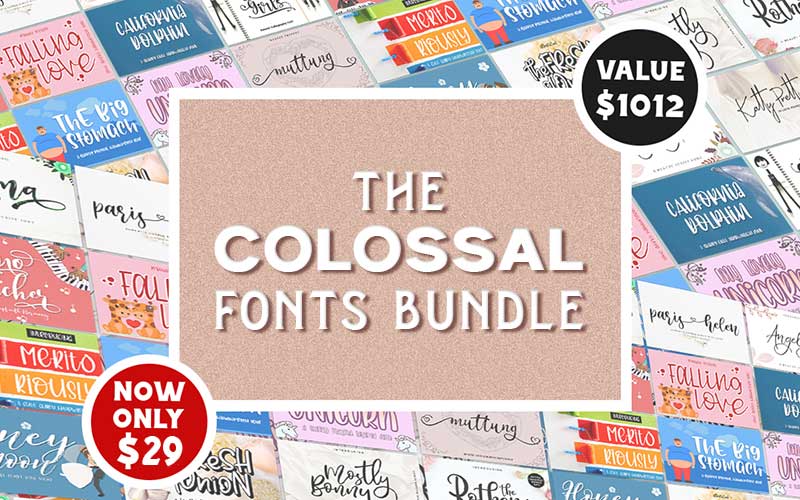
The Colossal Fonts Bundle
100 Best Fonts For Designers!
It’s here! Lumbering down towards you, the best fonts for designers cramped up in Inky’s latest Colossal Fonts Bundle!
This bundle is filled with 100 warm, smooth, and fuzzy fonts. These fonts are perfect for any project. From brand identities and packaging to editorial pieces and website designs, these fonts are useful for all types of campaigns.
These simple-to-use high-quality fonts can create perfect designs for your logo, blog, stationery, marketing, magazines, and more!
51 Font Families For These Best Fonts For Designers:
Delicious Family
Willona Family
Paulo Pacitto Family
Stylistic Sign Family
Mellisa Family
Wormies Family
Katty Pretty Family
Niken Family
Bestalia Family
Sweet Girls Family
Balutteli Family
Muttung Family
Hello Pretty Family
The King Family
Busset City Family
Angry&Hungry Family
Amellia Family
Metteora Family
Hasella Family
Love Heart Family
Angela Aiglory Family
Karyland Family
Masha Family
Rothena Family
FontBlade Family
The Chocolate Family
World Pressure Family
Senada Family
Hamburg Family
Roberts Family
Mottion Family
Cnossus Family
Angellyne Family
Hellena Family
Babyhome Family
Big Bang Family
Bonny Family
Fresh Onion Family
Paris Helen Family
Matrixoid Family
Lovely Unicorn Family
Big Stomach Family
Birama Family
California Dolphin Family
Donkey Casting Family
Eiffel Shine Family
Fallin Love Family
Ferment Family
Honeymoon Family
Meritoriuously Family
Piano Teacher Family